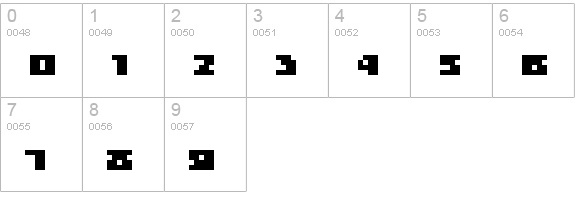
hooge 04_66 Font Details
Hooge 04_66 font is a modern and stylish typeface that exudes a sense of elegance and sophistication. Its clean lines and sleek design make it a versatile choice for a wide range of design projects. Whether you're working on a branding project, a website design, or any other creative endeavor, Hooge 04_66 font is sure to make a statement. The best part? Hooge 04_66 font is available for free download at FontsMarket.com. That's right, you can add this beautiful font to your collection without spending a dime. Take advantage of this fantastic offer and elevate your designs with the timeless appeal of Hooge 04_66 font. Download it today and let your creativity shine!